Best Urdu Fonts for Billboards & Digital Signage – Complete Guide
A billboard is read at speed, from a distance, in a second or two — so the best Urdu fonts for billboards are the boldest, plainest faces: Shamsheer Unicode for main headings, UL Sajid Heading for impact messages, UL Noreen Bold for short slogans, and Tehreer Regular for clean modern signs. This guide covers the picks for hoardings, LED displays and shop signs, the size rules that keep text readable from the road, and how to test a design before printing.
What Billboards Demand from a Font
- Distance legibility: text must read from 30–100 metres — bold, open letterforms win; thin calligraphy disappears.
- Speed reading: drivers and pedestrians get 1–2 seconds — five words or fewer, one message per board.
- Light tolerance: sunlight washout and LED glare punish low-contrast faces — prefer heavy weights.
- Weather-proof reproduction: large-format printing and vinyl cutting need clean outlines — Unicode fonts with solid strokes reproduce best.
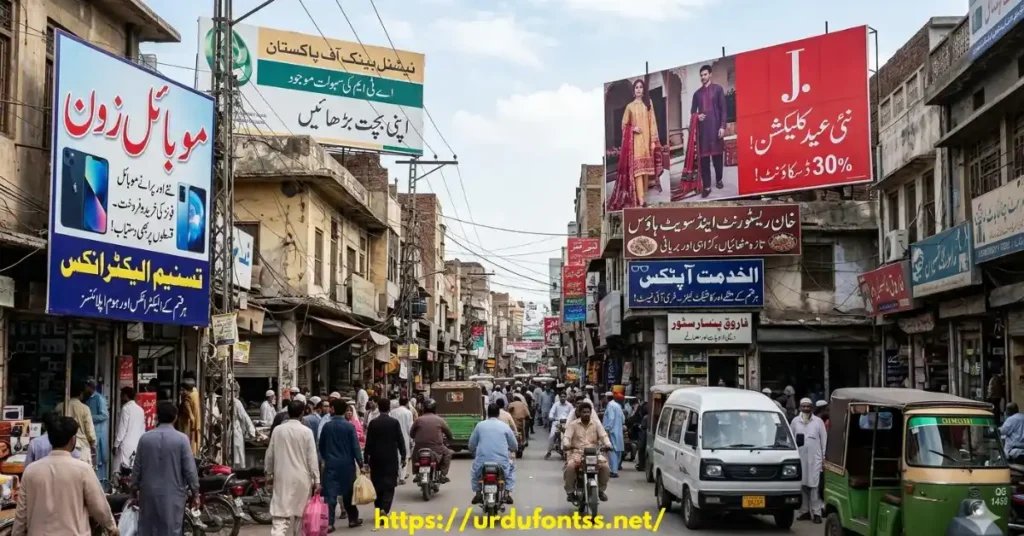
Best Urdu Fonts for Billboards & Outdoor Advertising
1. Shamsheer Unicode — best for main headings
Plain, heavy and instant — Shamsheer Unicode is the safest headline face for hoardings: it reads at a glance from across the road.
2. Jameel Noori Nastaleeq — best for professional signs
For brands that want the trusted traditional voice, Jameel Noori Nastaleeq works on large signs — set it big, since Nastaliq’s tall lines need room at distance.
3. UL Sajid Heading — best for impact messages
Purpose-built for headings, UL Sajid Heading gives slogans and sale messages maximum punch at large sizes.
4. SF Koonj Regular — best for modern signs
Shop boards and retail signage that want a contemporary feel use SF Koonj Regular — warm and personal without losing readability.
5. UL Noreen Bold — best for short slogans
Five-word messages and calls to action need weight — UL Noreen Bold carries them with authority.
6. Tehreer Regular — best for clean modern look
Minimal brands and tech signage suit Tehreer Regular — understated, with 689 verified glyphs behind it.
7. Urdu Naskh Unicode — best for digital screens
LED tickers and digital displays render small text constantly — Urdu Naskh Unicode stays clean and even on screens.
Arabic Fonts for Signage
- Islamic signage: Al Qalam Quran Majeed — classical Arabic with full mark support for mosques and religious boards.
- Arabic digital displays: Al Mushaf — built for screen rendering of Arabic text.
- Professional Arabic text: Muhammadi Quranic Font — a steady, formal Arabic face for institutional signs.
Size and Distance Rules
- The 1-inch rule: roughly 1 inch of letter height per 10 feet of viewing distance — a roadside hoarding read from 100 feet needs letters around 10 inches tall.
- Fewer words, bigger letters: five words maximum on a highway board; every word you cut lets the rest grow.
- Test with a photo: photograph the design, shrink it to phone size — if you cannot read it in the photo, drivers cannot read it on the road.
- LED screens: prefer simple, heavy faces — thin strokes shimmer and break up on low-resolution LED panels.
Design Tips for Urdu Billboards
- Contrast is everything: dark text on light backgrounds (or the reverse) — avoid mid-tone combinations that wash out in sunlight.
- One message per board: headline + phone number or location — nothing else. Detail belongs on the flyer, not the hoarding.
- Right-to-left layout: keep the reading order natural for Urdu — logo and contact info placed where the eye lands last.
- Outline before printing: convert text to outlines (or embed fonts) before sending files to the printer — the Illustrator guide shows the steps.
Common Problems & Solutions
| Problem | Solution |
|---|---|
| Text unreadable from the road | Letters too small or face too thin — increase size per the distance rule and switch to a heavier face |
| Urdu letters break on the LED panel | Use a simple heavy Unicode face; thin calligraphic strokes shimmer on LED |
| Printer substituted a different font | Convert text to outlines or embed the font in the PDF before sending the file |
| Colours wash out in sunlight | Raise contrast — dark text on light ground, and test a printed swatch outdoors |
Final Words
Billboards reward the bold and punish the delicate: pick one heavy face, keep the message under five words, size the letters for the viewing distance, and proof the design shrunken before it goes to print. Shamsheer Unicode for headlines, UL Sajid Heading for impact, a Naskh face for screens — download any of them from its page and make the board readable from a hundred metres.
One — two at most. A billboard gets seconds of attention; every extra face dilutes the message.
Which font is best for LED digital billboards?
A simple, heavy Unicode face like Shamsheer Unicode or Urdu Naskh Unicode — thin strokes shimmer and break up on LED panels.
How do I stop the printer changing my font?